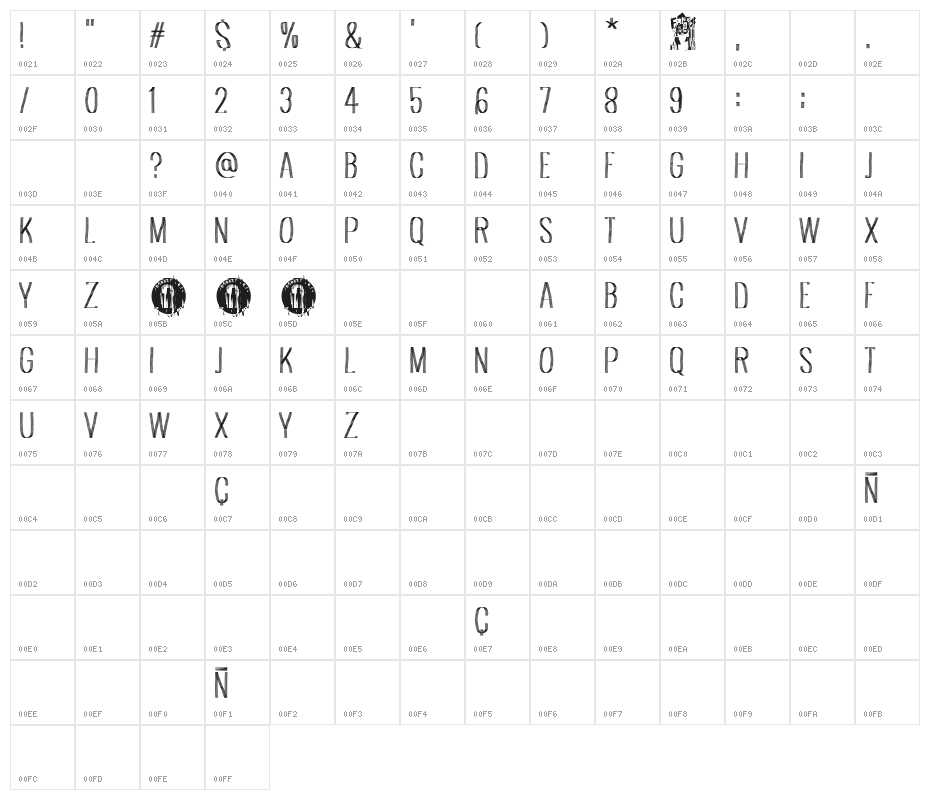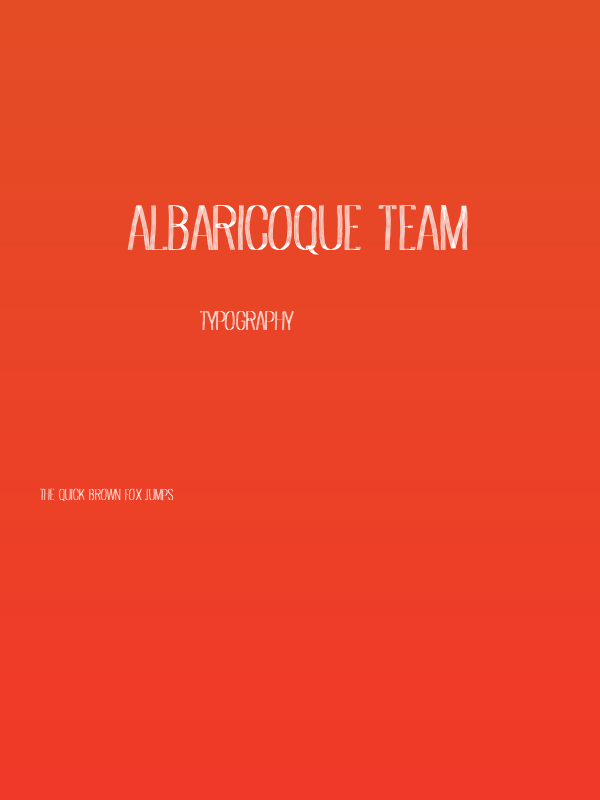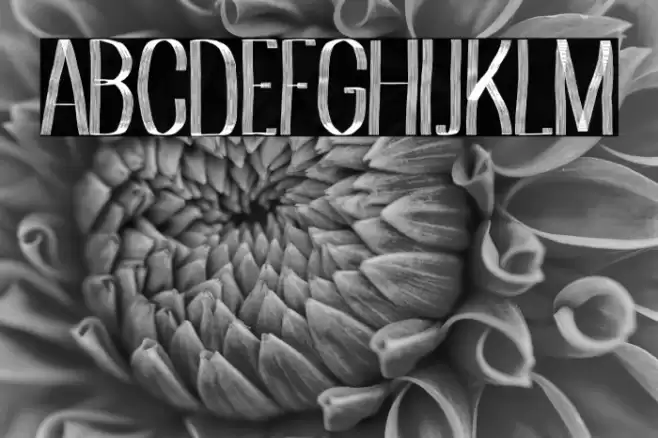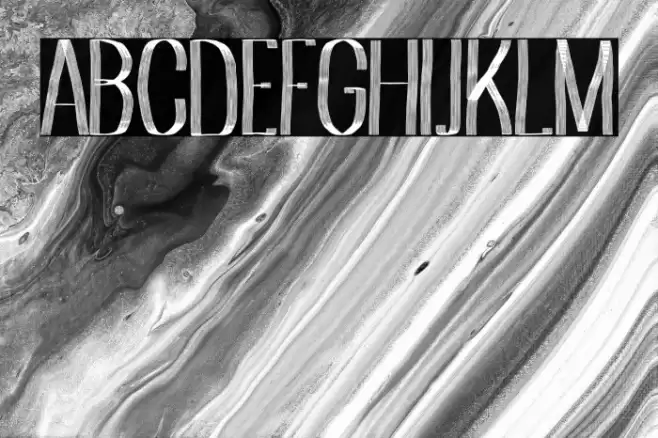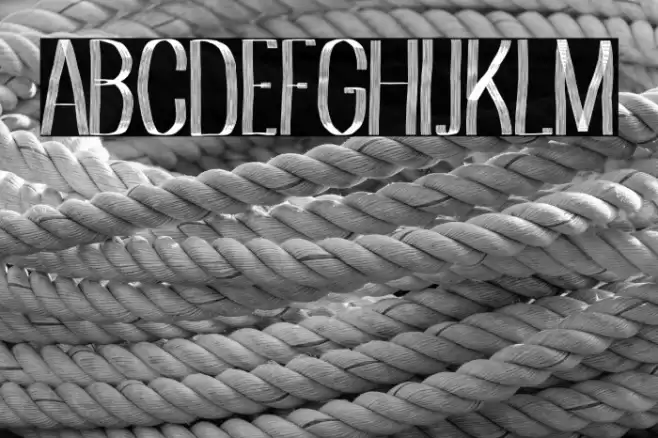
Albaricoque Team Font
Albaricoque Team Description
This font features a unique, hand-drawn style with a textured appearance that resembles brush strokes or wood grain. The characters are tall and narrow, giving them a condensed look, while maintaining a consistent height across both uppercase and lowercase letters. The strokes vary in thickness, creating a medium contrast that adds to the dynamic and artistic feel of the font. The overall style is decorative and modern, making it suitable for creative projects that require a distinctive and eye-catching typeface.
| Width | Condensed |
| Overall Style | Modern, Decorative |
| Proposed Projects | Ideal for posters, artistic branding, album covers, and creative digital designs. |